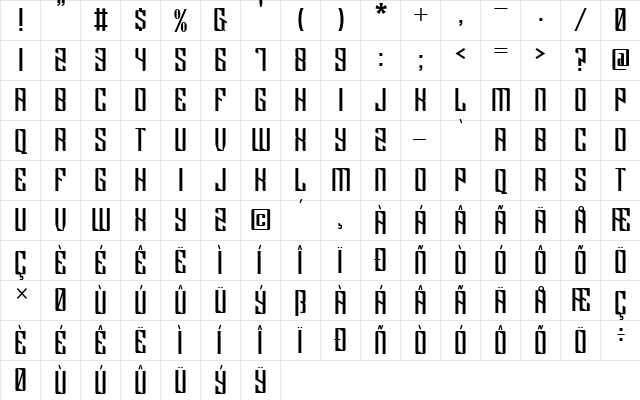
Klytus Regular
Design Context for Klytus Typeface
Klytus offers clean, dependable letterforms without strong stylistic allegiance, making it a practical choice for designers who need flexibility.
Pro Tip: Pair Klytus with a font of contrasting weight or personality to build a more expressive typographic hierarchy.